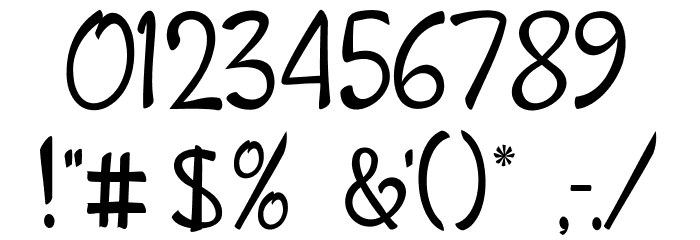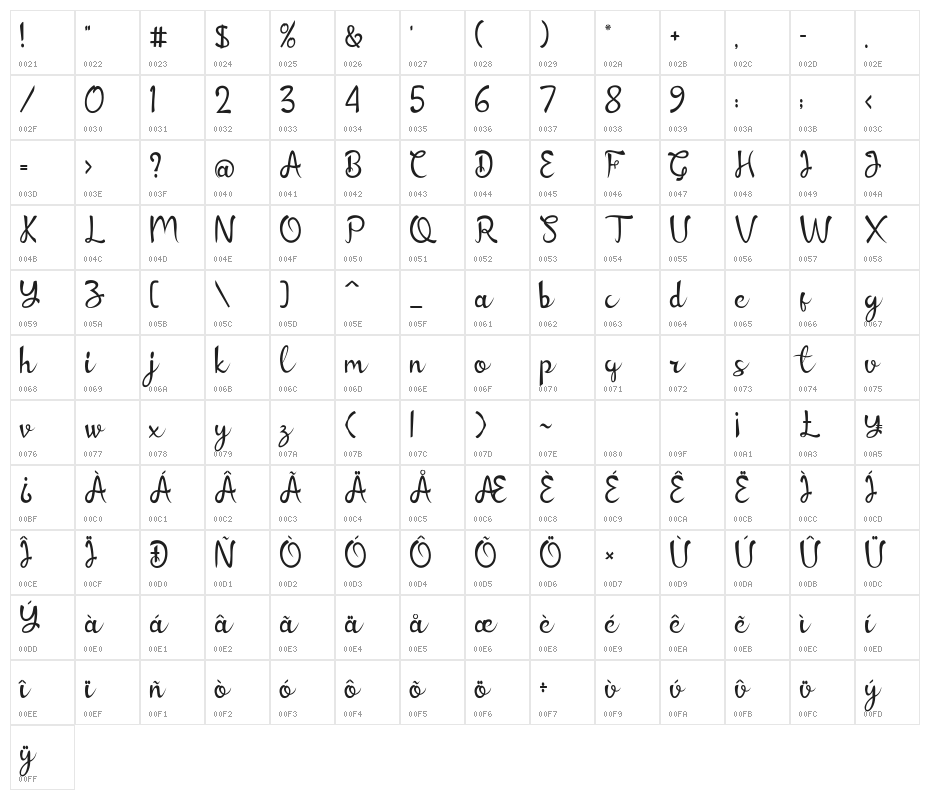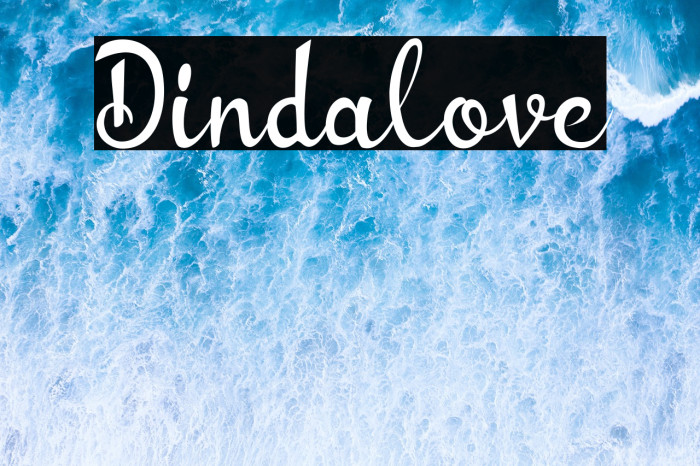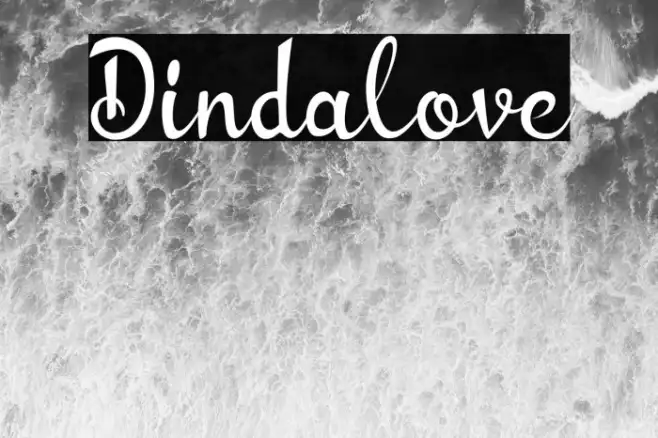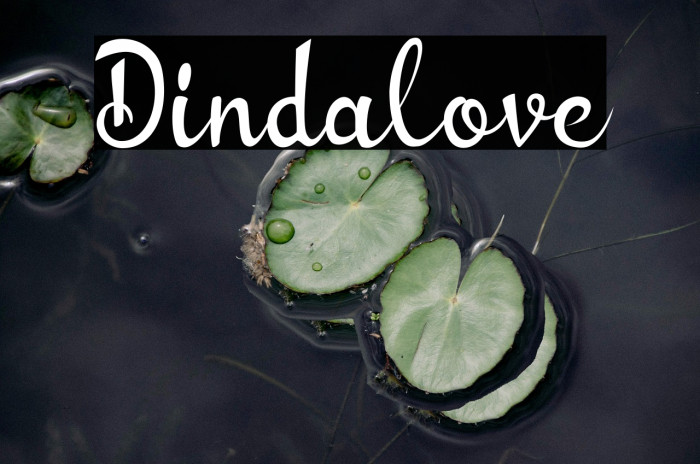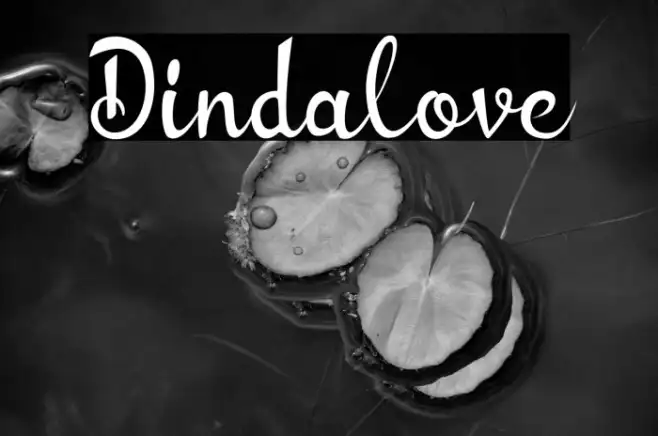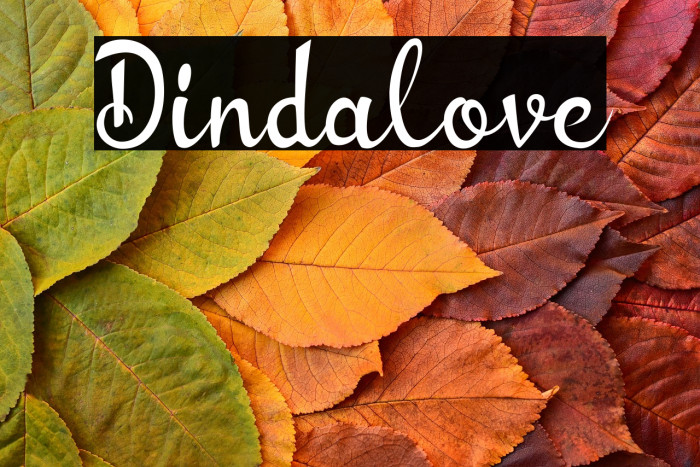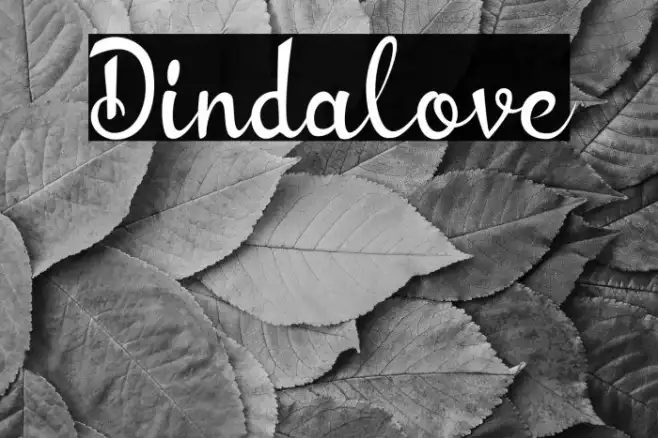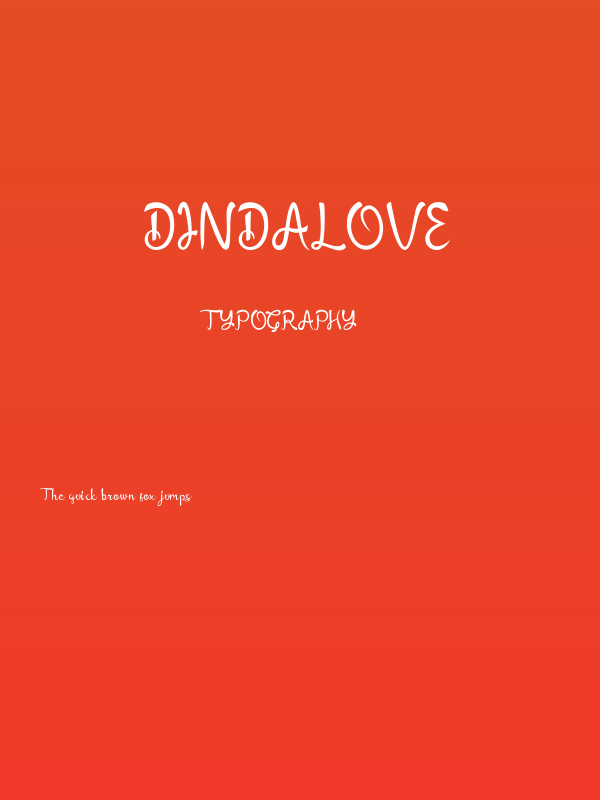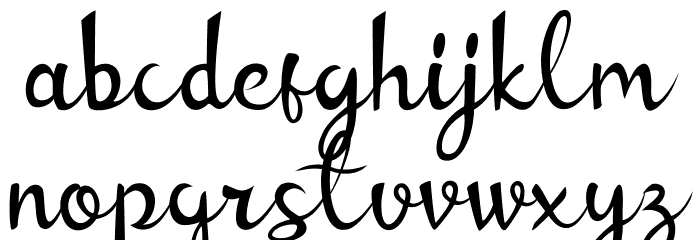
Dindalove Font
This font features a playful and whimsical script style with a hand-drawn appearance. The uppercase letters are characterized by their flowing, interconnected strokes, giving them a lively and dynamic feel. The lowercase letters maintain a consistent style, with smooth curves and loops that enhance the font's overall fluidity. Numbers and special characters are designed to match the playful aesthetic, making them suitable for creative and informal contexts. The font's unique style is ideal for projects that require a personal touch, such as invitations, greeting cards, or artistic branding.
| Proposed Projects | Ideal for invitations, greeting cards, artistic branding, and creative projects. |